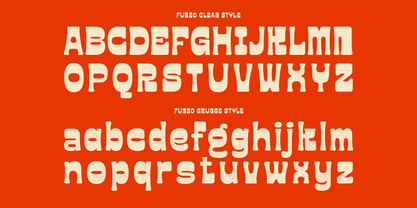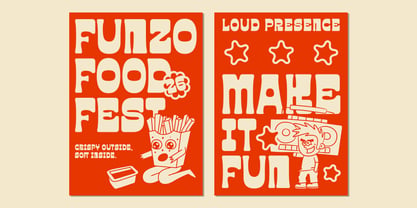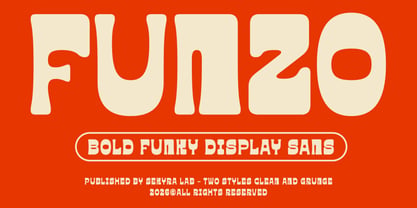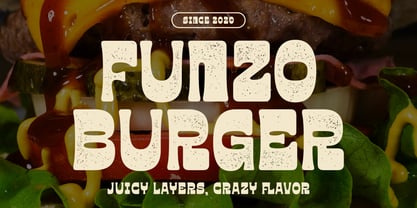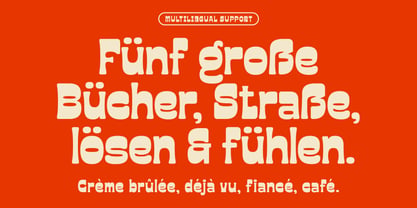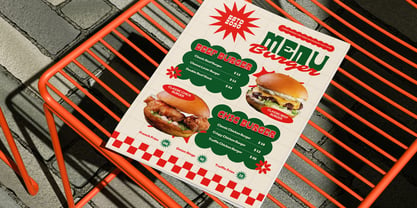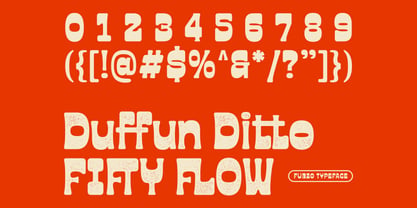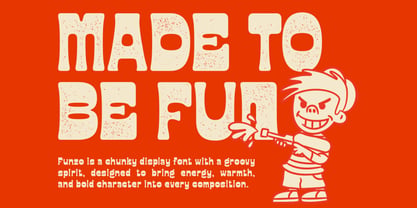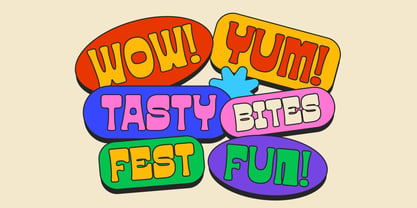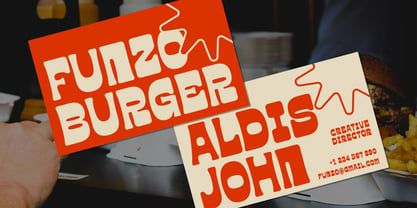
Funzo
by Sekyra Lab
The Funzo Font Family was designed by Hanif Al Irsyad and published by Sekyra Lab. Funzo contains 2 styles and family package options. More about this family
Funzo is a bold and chunky display font designed to bring playful energy and retro personality into your work. With its soft curves, groovy shapes, and strong visual presence, Funzo instantly creates eye-catching typography that feels fun, warm, and expressive. This typeface comes in two styles: clean and grunge, giving you flexibility to switch between smooth modern looks or textured vintage vibes. Perfect for designers who want to create standout visuals with a funky twist. Funzo works beautifully across a wide range of creative projects such as branding, posters, packaging, social media graphics, food designs, and more. Its friendly and bold character makes it especially great for fun, youthful, and expressive themes.
Designers: Hanif Al Irsyad
Foundry: Sekyra Lab